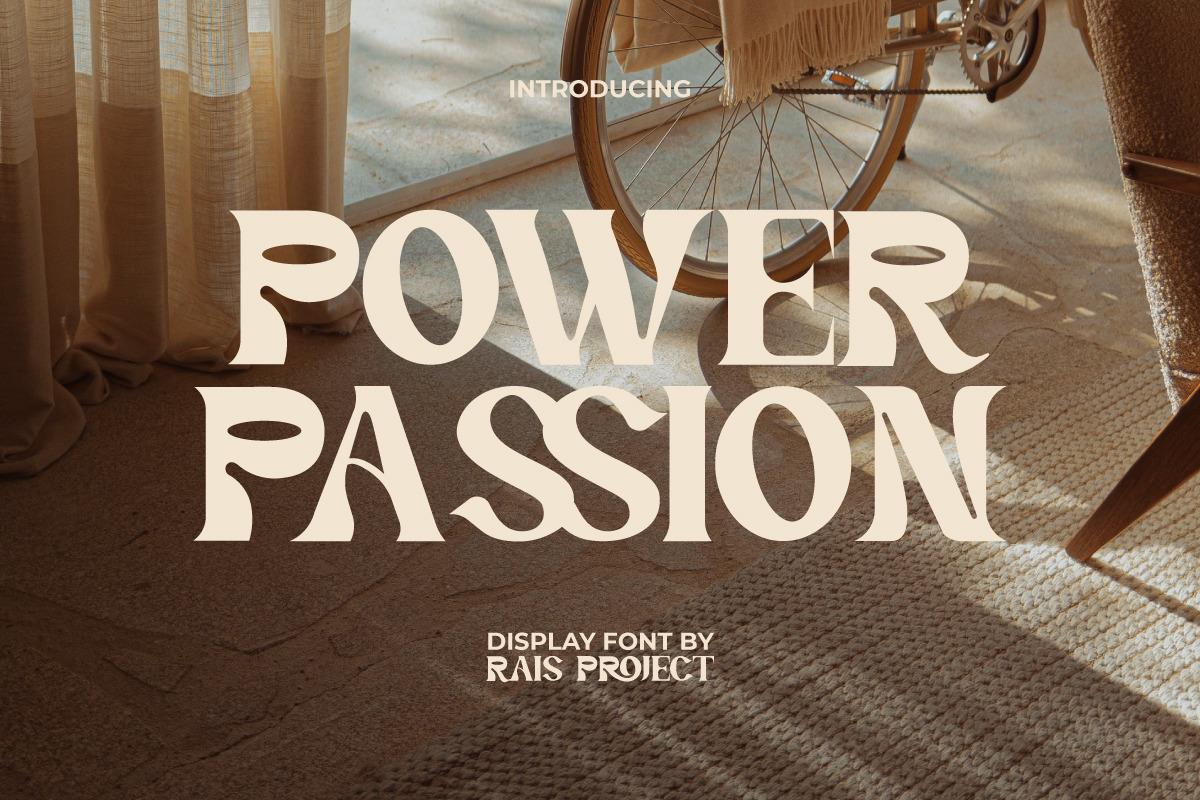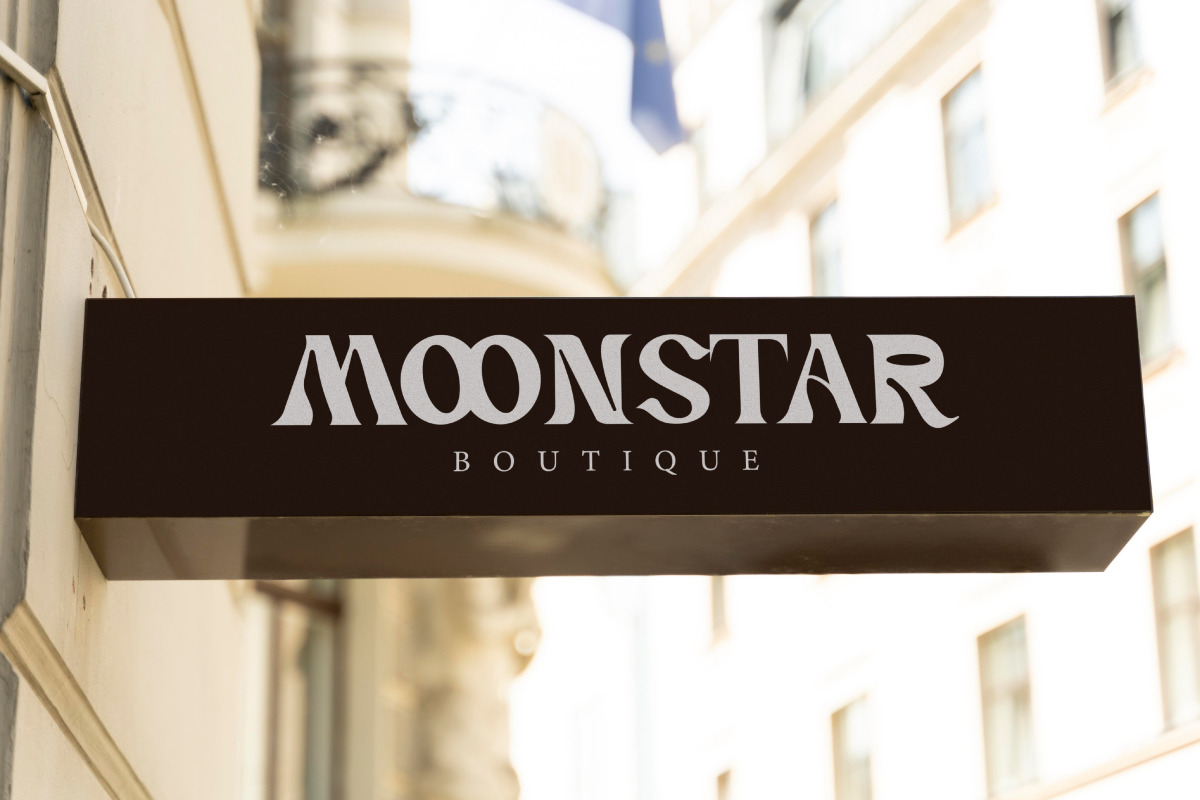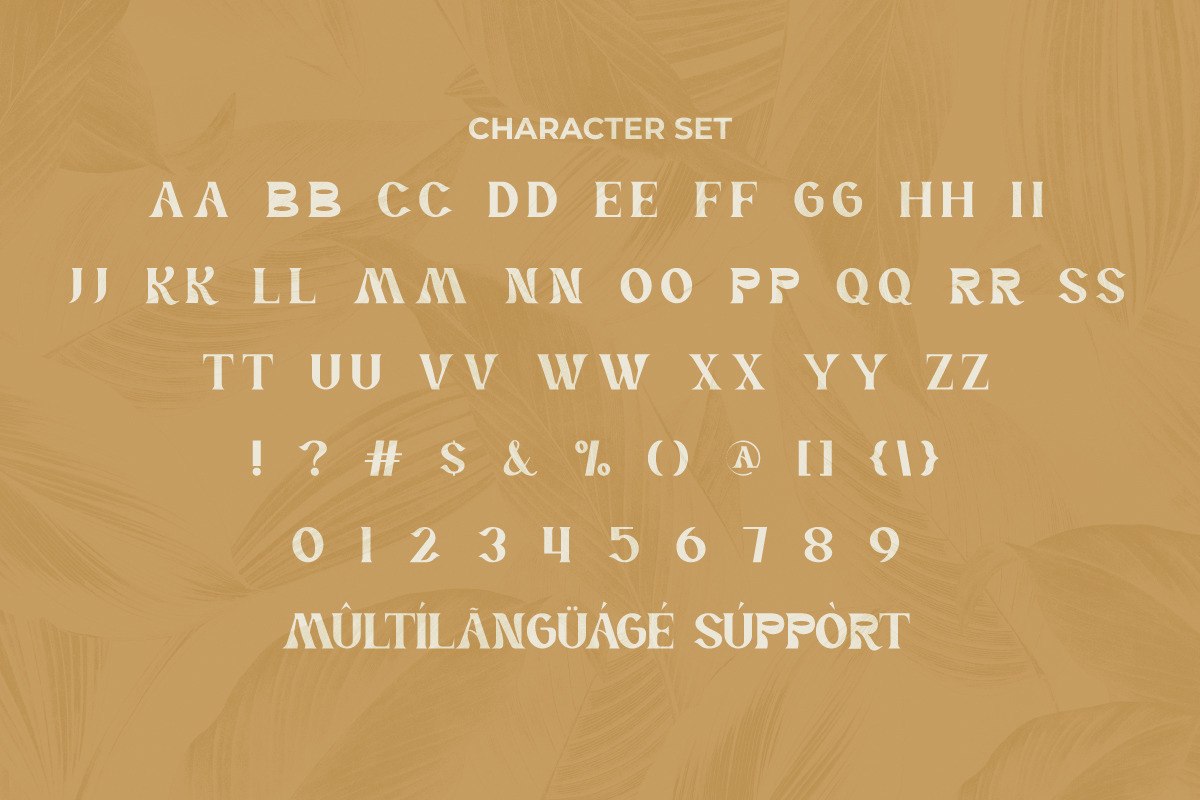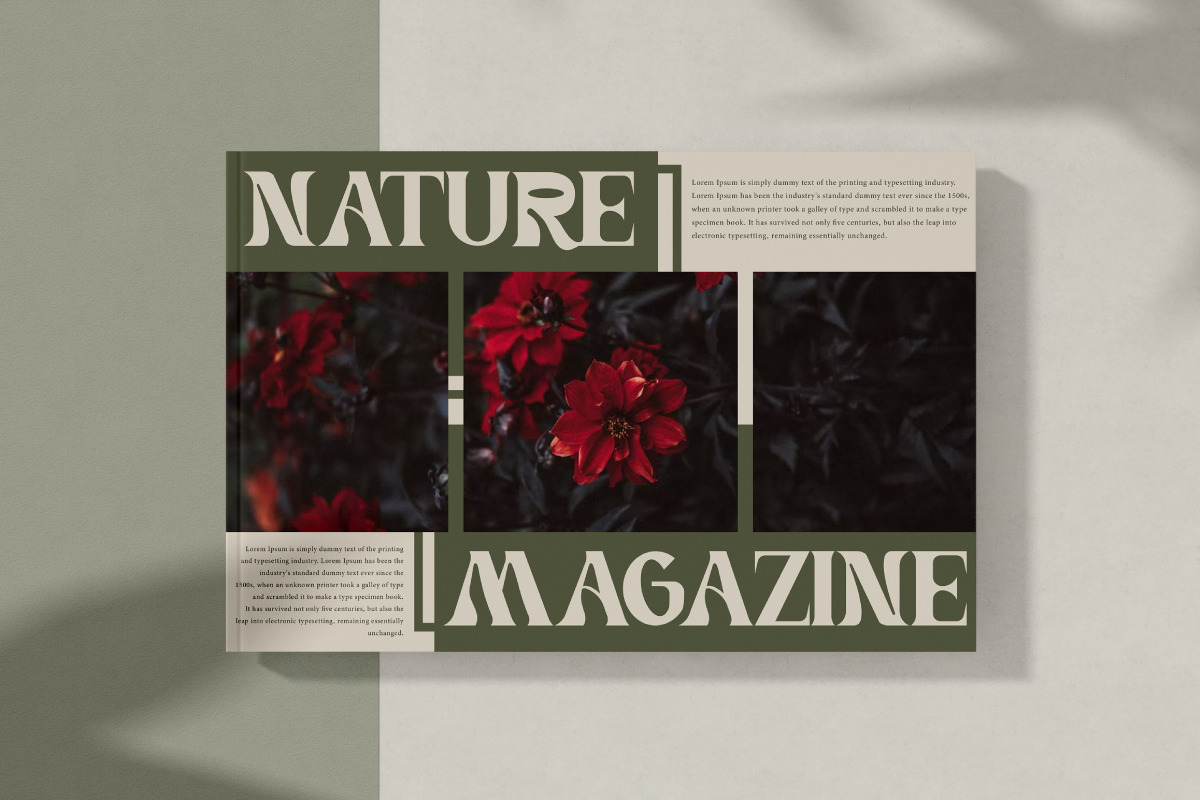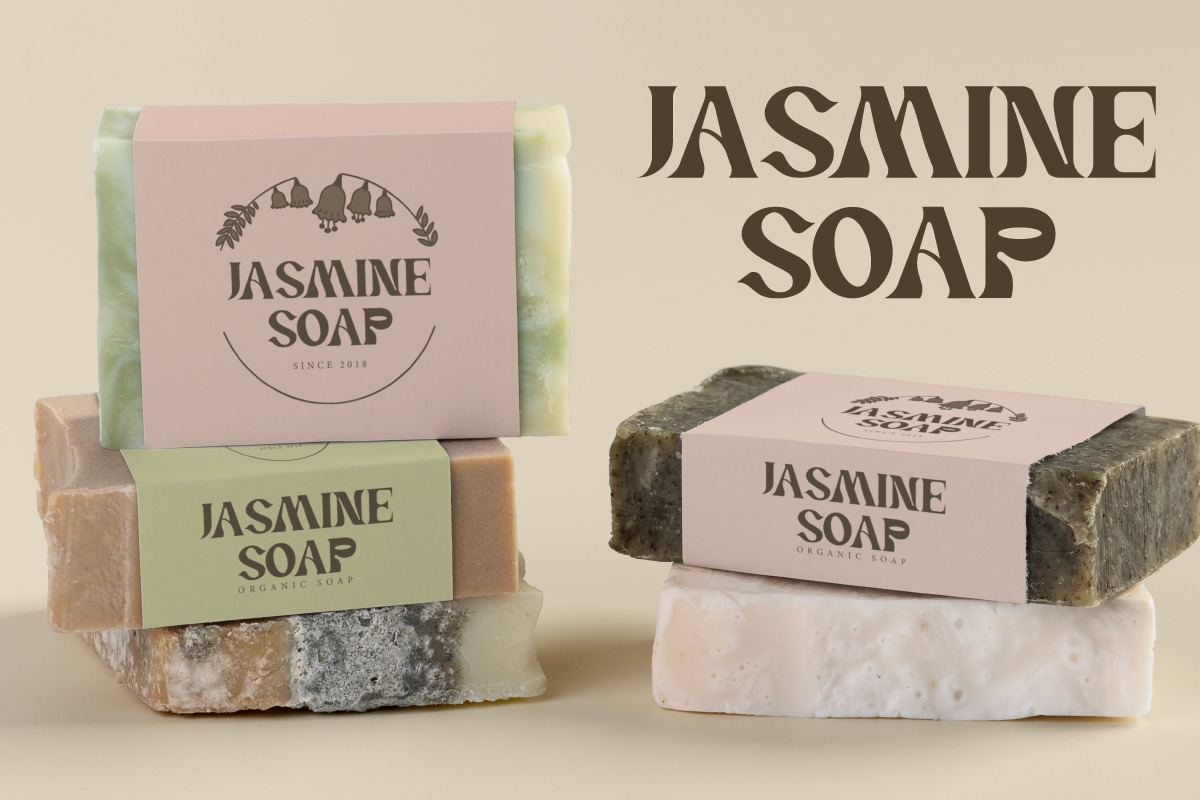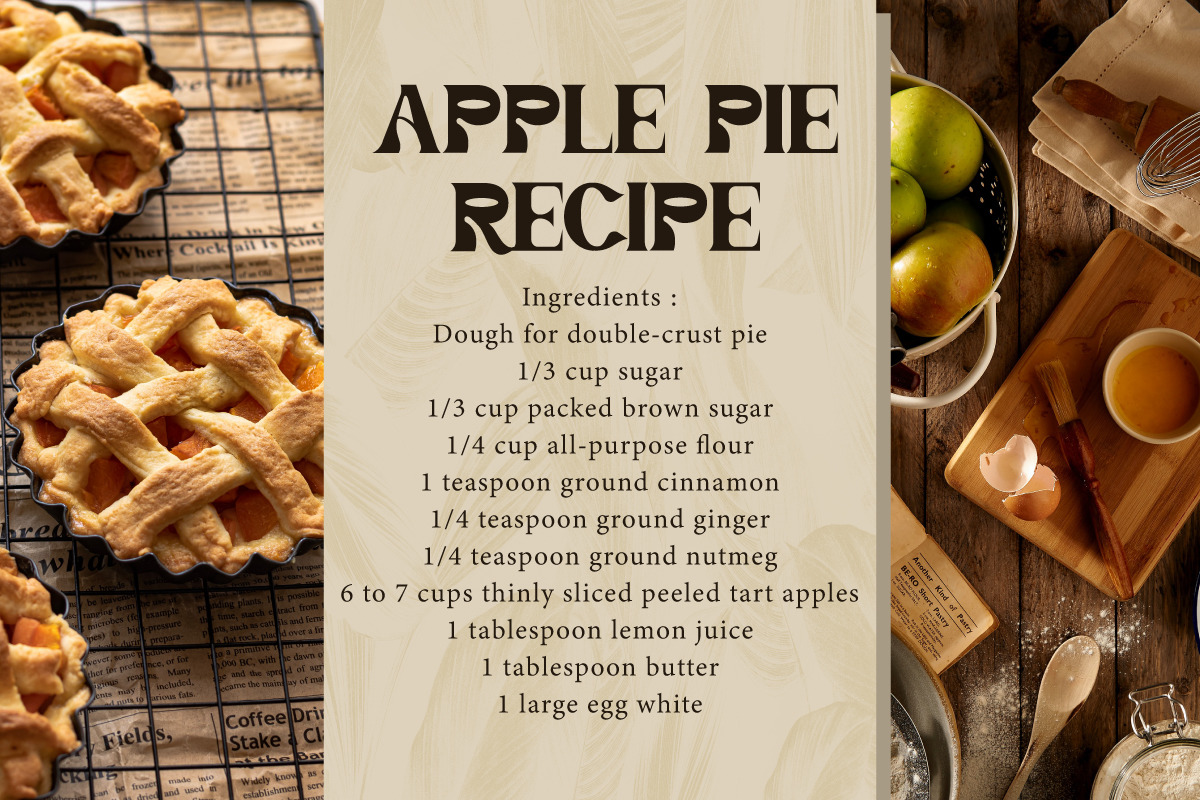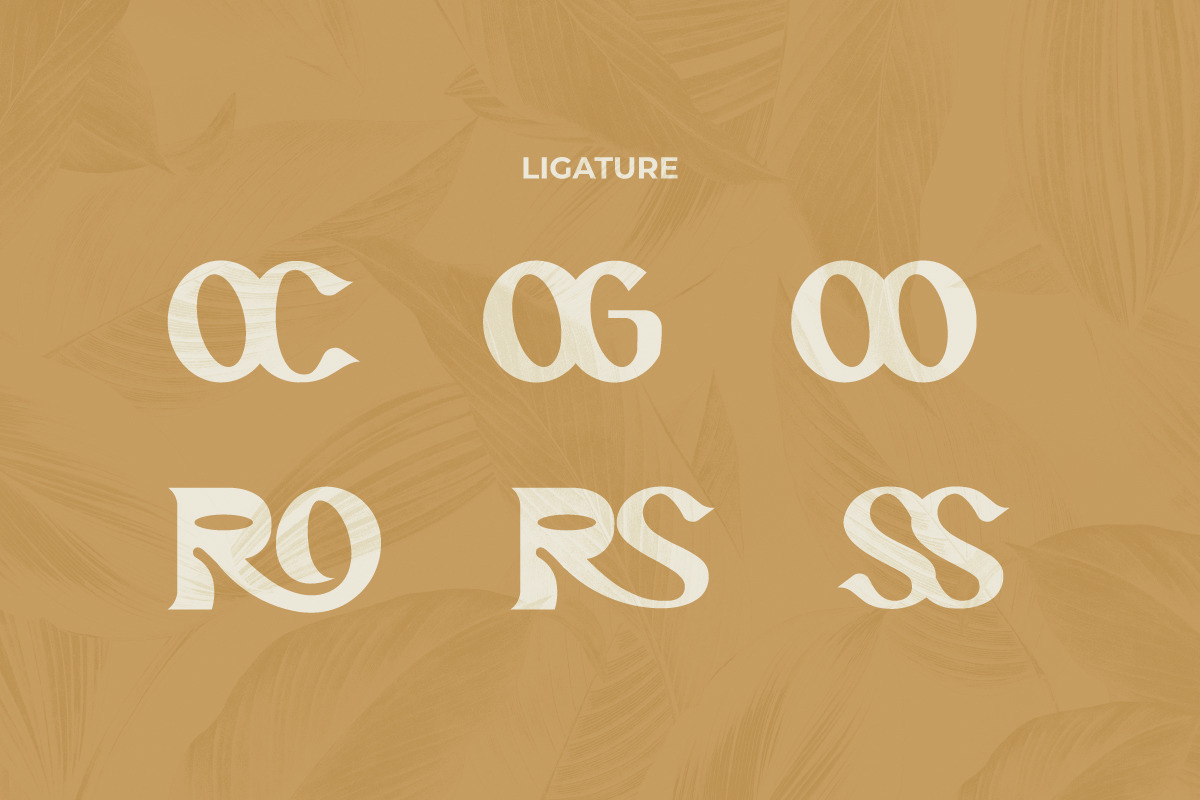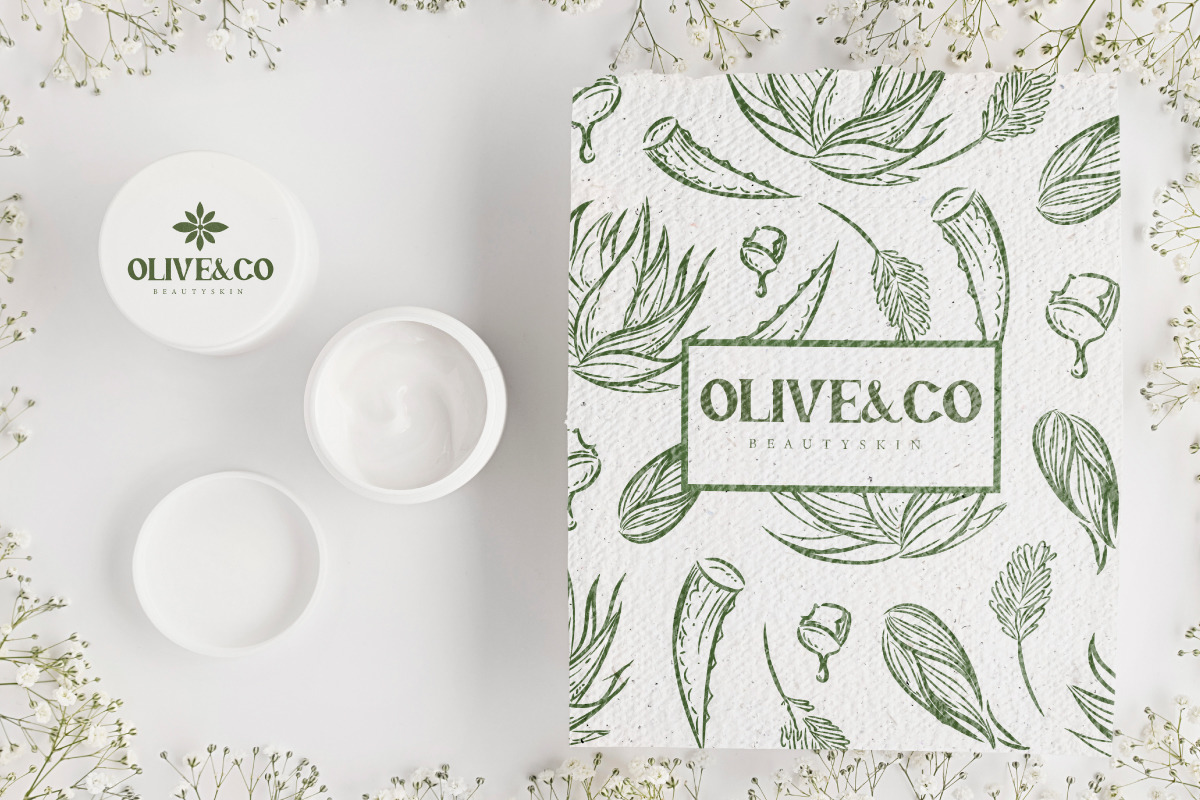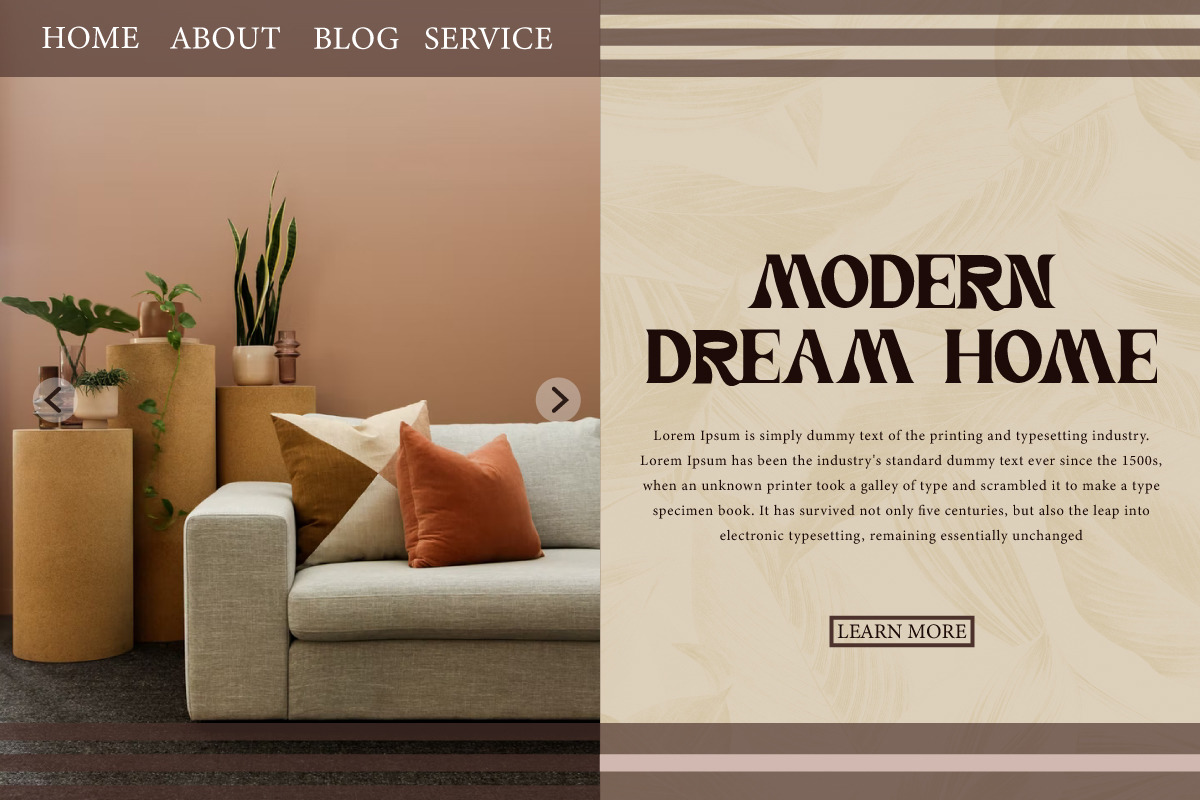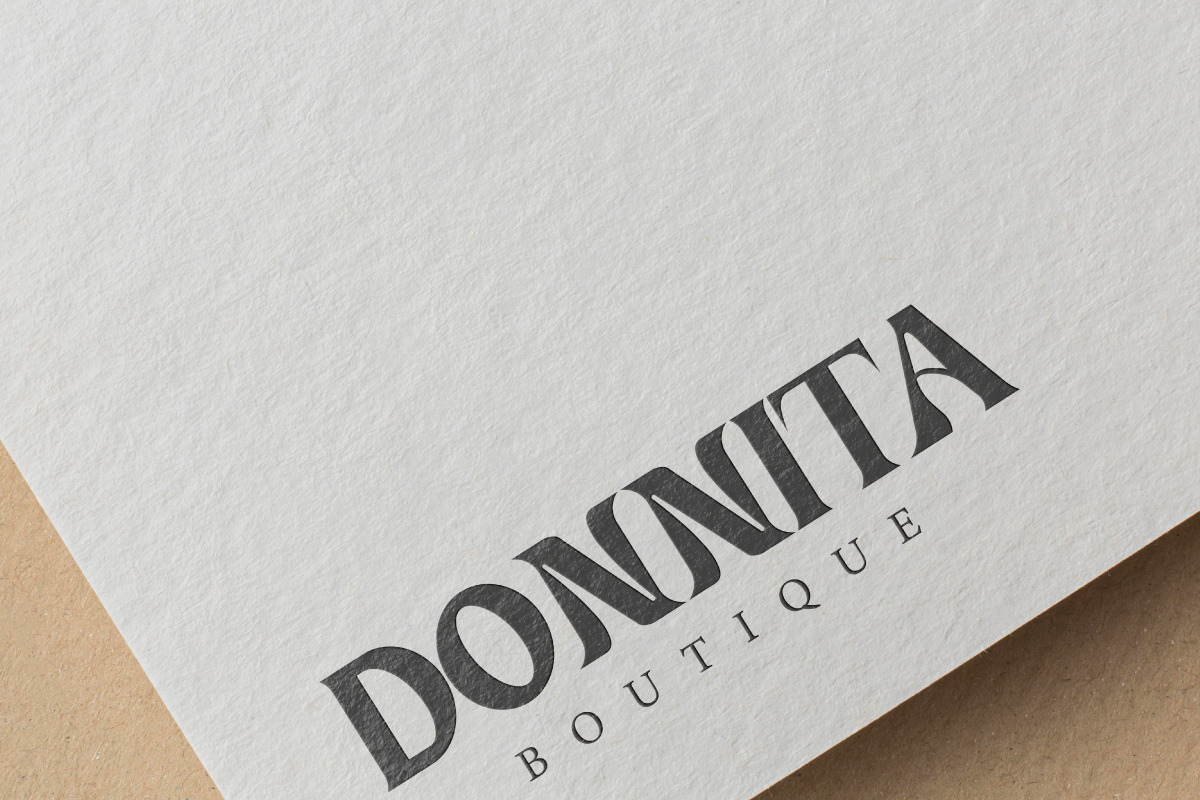
Power Passion Font
Power Passion Font is a stylish modern display font with summer casual fun style. This font has unique wavy bold lines which will give it a fresh feel and still easy to read. It would be perfect for any project such as, brand logo, brochure, labels, magazine catalog, menu, signage, stationery, title, website, etc.